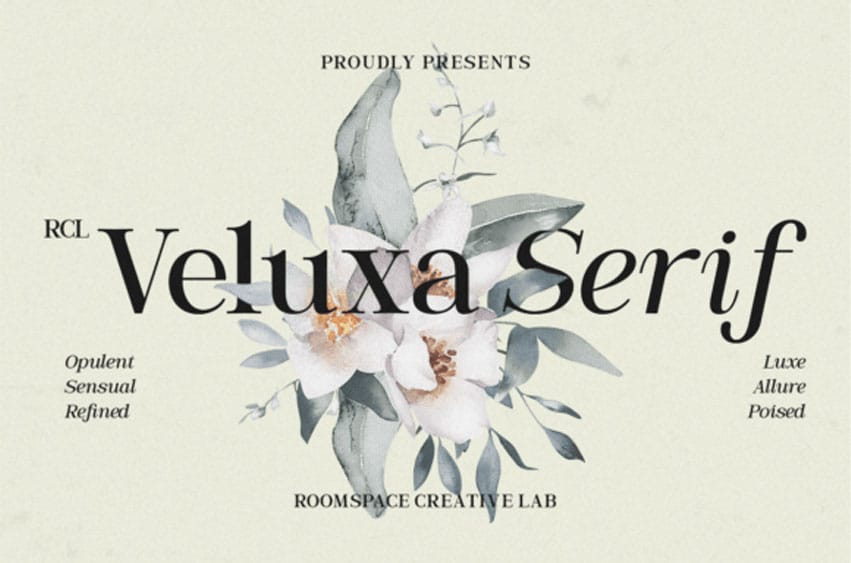
Veluxa Serif Font is a masterclass in modern luxury and sensual refinement. Created by Roomspace Creative Lab, the Veluxa Serif typeface offers a delicate balance of slender strokes and sharp, needle-like serifs that exude “Luxe” and “Allure.” The glyphs of the Veluxa Serif font are designed with a generous x-height and sophisticated proportions, making it a stunning choice for high-end fashion labels and boutique skincare packaging.
This Veluxa Serif typeface is best used in layouts that embrace white space, allowing the intricate details of the characters to breathe. When the Veluxa Serif font is paired with botanical illustrations or soft watercolor backgrounds, it creates an opulent and “poised” visual identity.
The Veluxa Serif typeface also includes refined ligatures that add a bespoke feel to logos and headlines. For designers seeking to communicate prestige and feminine elegance, this font is the ultimate stylistic partner.
Use Cases: Logos, beauty packaging, fashion branding, café menus, magazines, invitations, social media, and marketing materials.